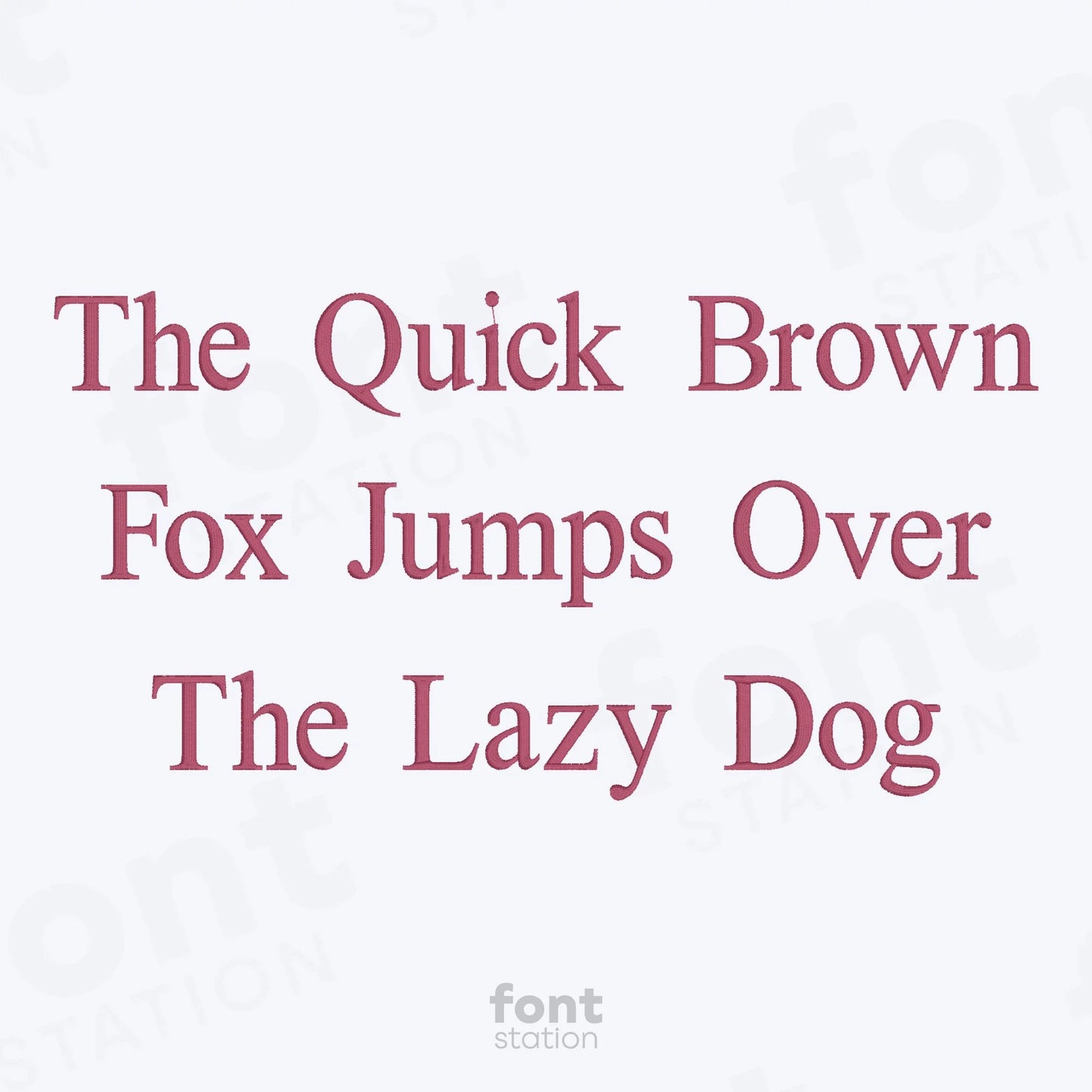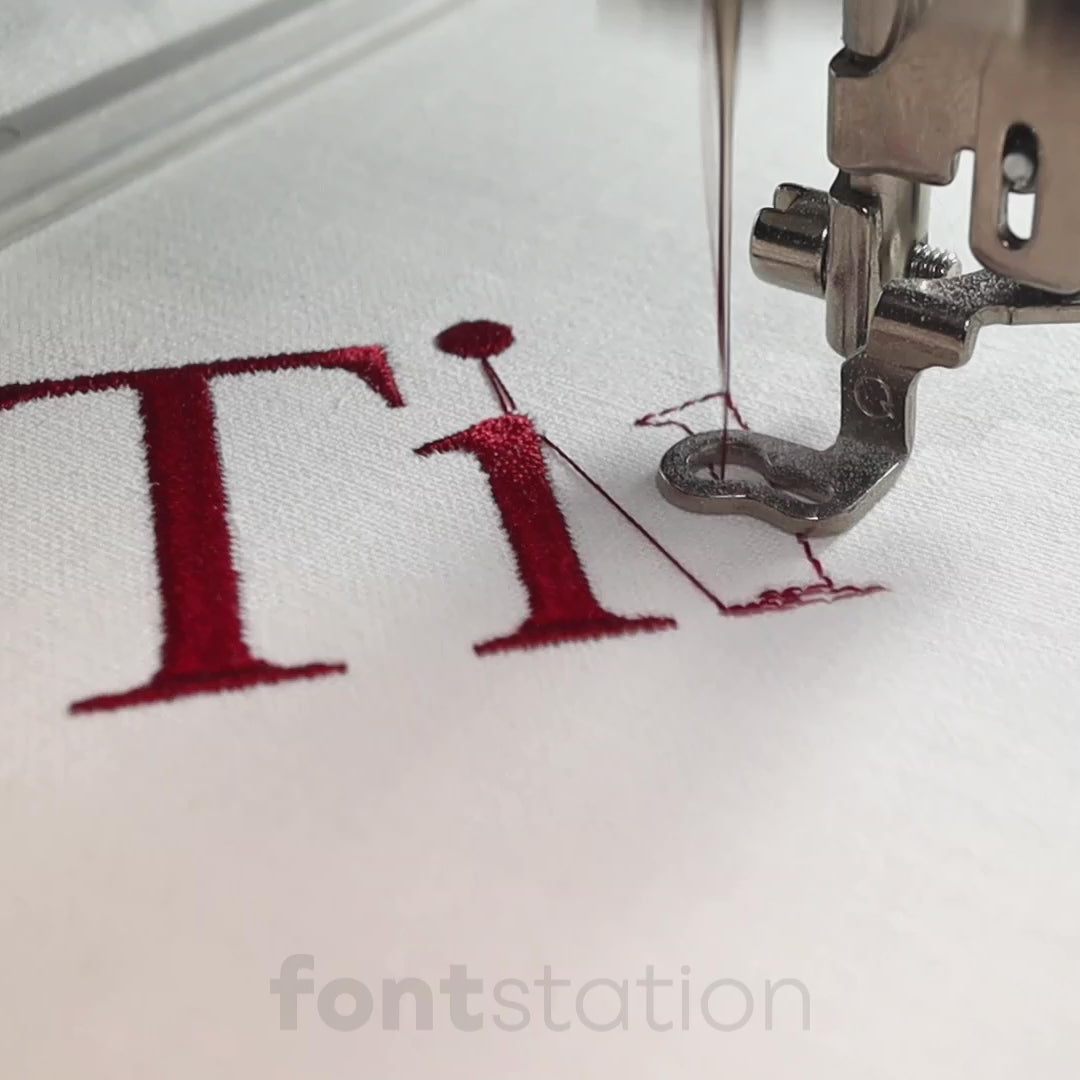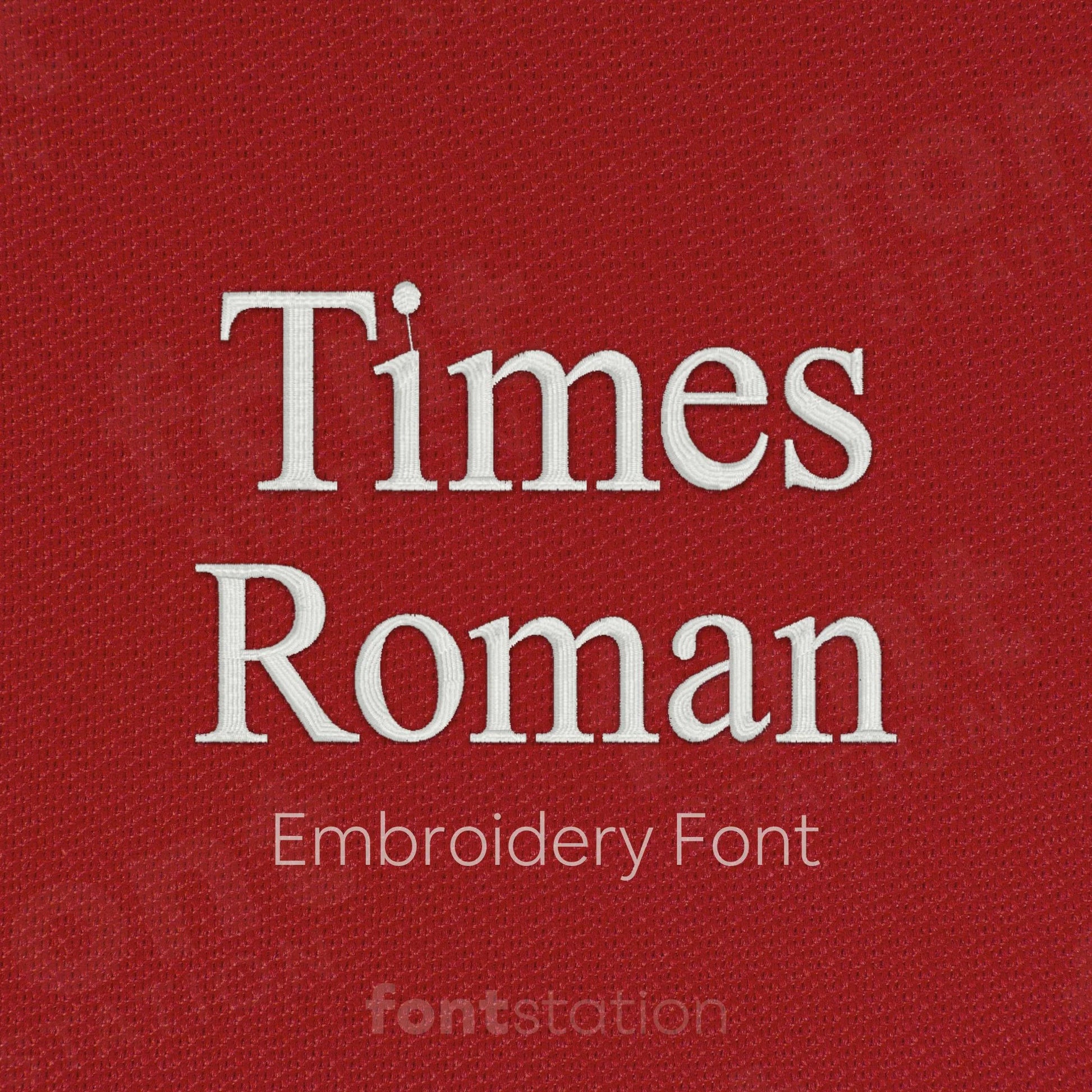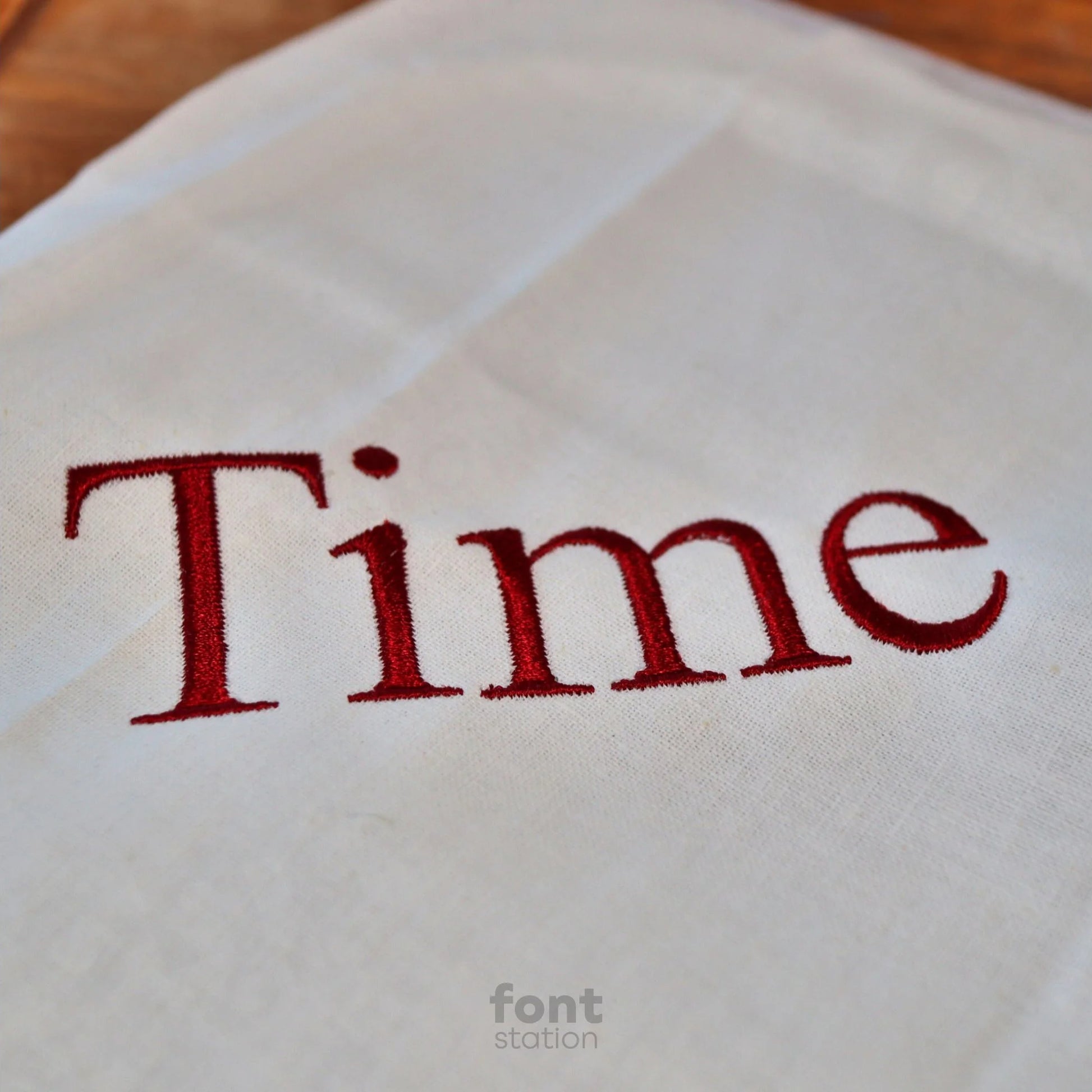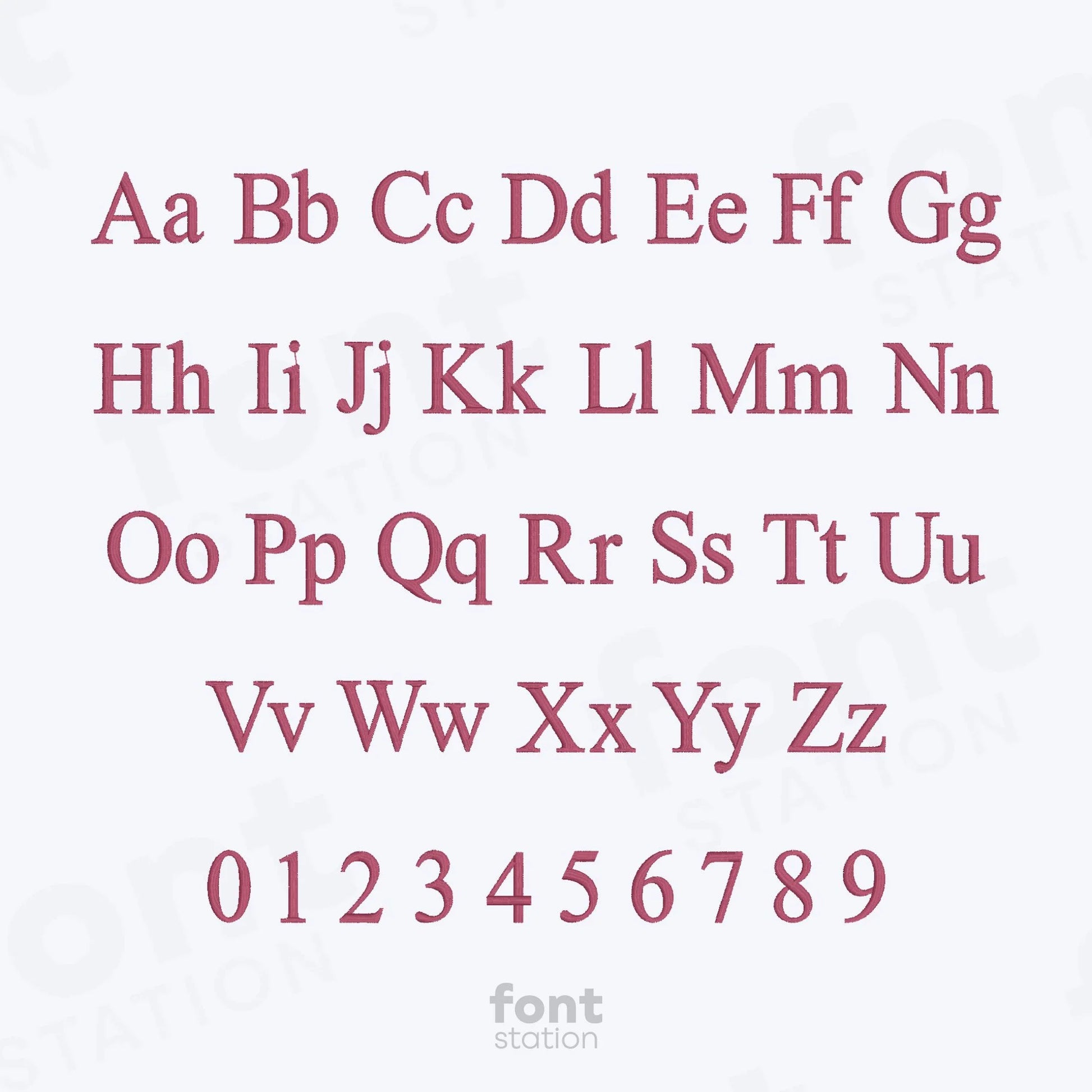
Times New Roman Embroidery Font
Our Times New Roman embroidery font offers a classic serif alphabet perfect for elegant designs. These refined letters stitch smoothly on your embroidery machine and bring timeless charm to any project.
About the Times New Roman Embroidery Font
Our Times New Roman embroidery font brings timeless elegance to your embroidery projects.
This classic Times Roman embroidery alphabet features clean, serif letters that add a refined, traditional look to any design. Perfect for monograms, formal gifts, and heirloom-quality projects, these machine-ready embroidery letters stitch beautifully on any embroidery machine. Professionally digitized for smooth stitching and crisp detail, the font is available in multiple formats including BX, PES, DST, JEF, EXP, VP3, HUS, and XXX. Add sophistication to your next project with this versatile classic embroidery font.